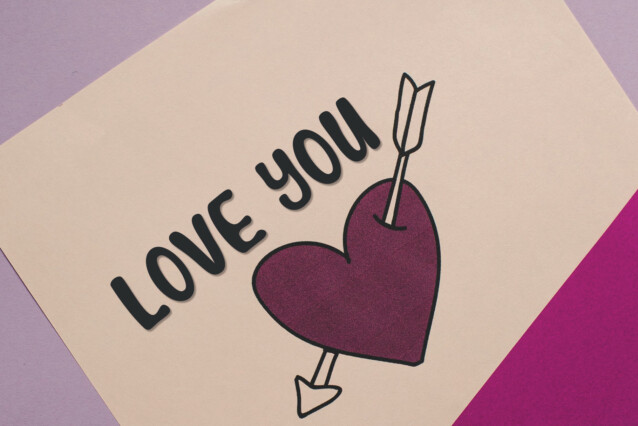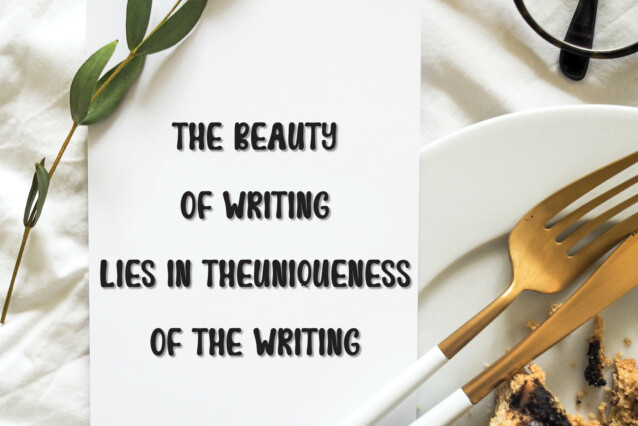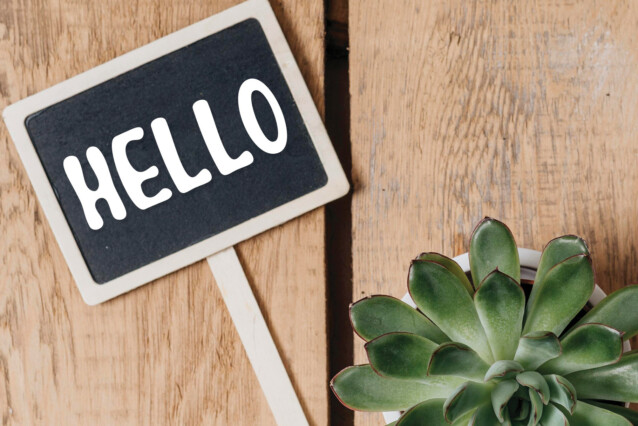
Big Movie Display Font
Big Movie Display Font is a friendly and fun handwritten display font. Use it to create unique t-shirt designs, baby onesies, nursery decorations, digital designs, cards, and many more.